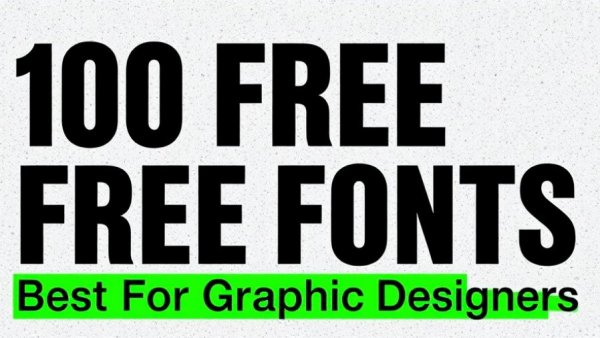
Explore 100 Free Fonts: Essential Resources for Every Graphic Designer
Bold typographic design about 100 free fonts for graphic designers on speckled background.
Discover the Top Free Fonts for Every Graphic Designer
When it comes to graphic design, typography plays a crucial role in setting the tone and communicating messages effectively. For designers working with tight budgets or those just dipping their toes into the world of graphic design, having access to free fonts can be a game changer. In this article, we explore 100 free fonts that not only elevate the aesthetic of any project but are also 100% free for commercial use, allowing you to experiment and showcase your creativity without financial constraints.
Why Free Fonts Matter in Graphic Design
Graphic designers often find themselves balancing aesthetics with readability. A diverse range of free fonts allows designers to test different typographic styles applicable in various projects, such as branding, posters, or social media graphics, without the burden of extra costs. During the design phase, experimenting with free fonts is essential, whether you’re working on a logo, an invitation, or a detailed brochure.
Highlighting Must-Have Fonts
Exploring a collection of fonts is an experience every designer cherishes. Some standout choices that cater to varied themes and functions include:
• Kidazoo Font: A whimsical typeface perfect for children’s projects, capturing the essence of joy through its rounded characters.
• JUST Sans Outline Font: A minimal display typeface characterized by its geometric clarity, ideal for headings that require a modern touch.
• Rintvera Font: Blending sophistication with modern aesthetics, this elegant font is superb for branding or editorial layouts.
The Impact of Typography in Branding
Your choice of font can significantly influence brand perception. For a small business or a startup, selecting the right font helps solidify brand identity. Fonts like Antara Boxing can unambiguously convey strength and confidence, making them perfect for sports-themed brands. Conversely, the Rintvera font can communicate luxury and professionalism, setting the right tone for premium products. Choosing the correct fonts and understanding their impact cultivates a cohesive brand image that resonates with your target audience.
Utilizing Fonts in Real Projects
Testing fonts in real-world applications rather than preview images is paramount. A large selection of free fonts gives designers the freedom to explore various layouts and styles. Projects such as flyers, brochures, and social media posts can all benefit from the right typography, making a compelling argument for why designers should keep a diverse font library at their fingertips.
Practical Tips for Choosing the Right Font
Designers should consider a few guidelines when selecting fonts for their projects:
• Evaluate Readability: Ensure that the font is legible at various sizes, especially for long text blocks.
• Match the Tone: Choose fonts that align with your brand's personality and message.
• Test in Context: Use the fonts in real layouts to assess how they interact with images and text blocks.
Conclusion: Embrace the Power of Free Fonts
Whether you are a hobbyist or a professional graphic designer, exploring these 100 free fonts can expand your creative potential. From helping you meet tight budgets to allowing for experimentation, free fonts can play an essential role in your design journey. As you build your font library, don't forget the strength of local graphic design services; they can provide invaluable support and services to bring your designs to life.